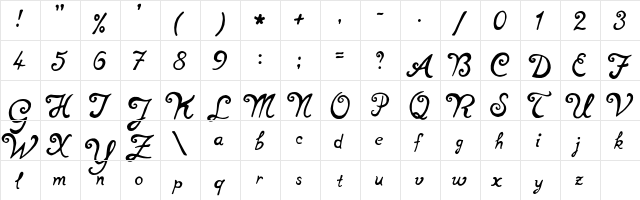
notperfect regular Regular
| Foundry | Cruzine |
| Designer | Cruzine |
Design Context for notperfect regular Typeface
notperfect regular is a composed and adaptable typeface that performs quietly and consistently across a wide range of design contexts.
Pro Tip: Use notperfect regular in both headline and body roles to test its range before committing to a single application.